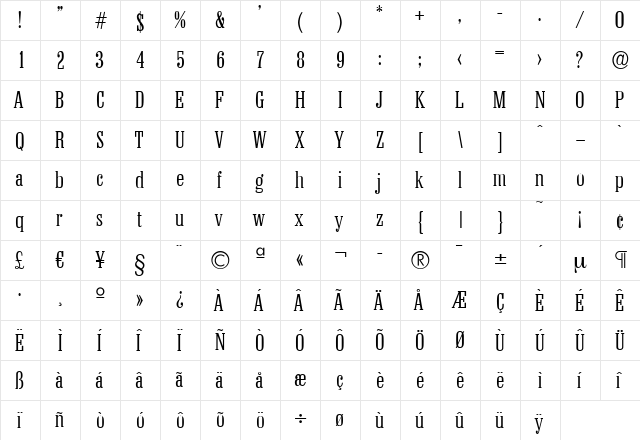
RobertBecker-Light Regular
Design Context for RobertBecker-Light Typeface
RobertBecker-Light offers clean, dependable letterforms without strong stylistic allegiance, making it a practical choice for designers who need flexibility. Its slender proportions lend an understated elegance to any composition.
Pro Tip: Pair RobertBecker-Light with a font of contrasting weight or personality to build a more expressive typographic hierarchy.